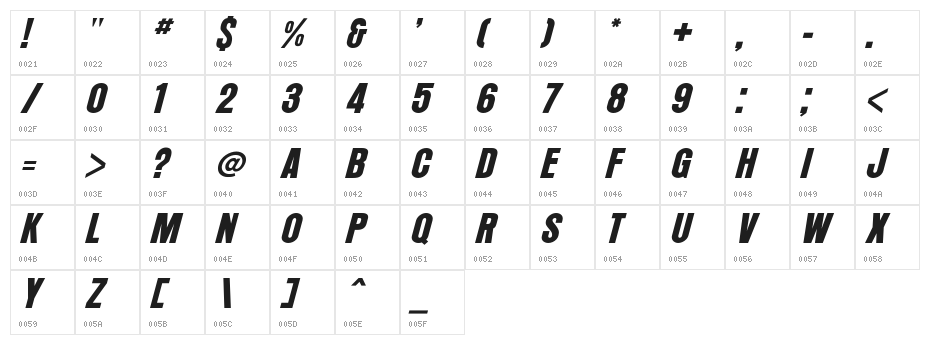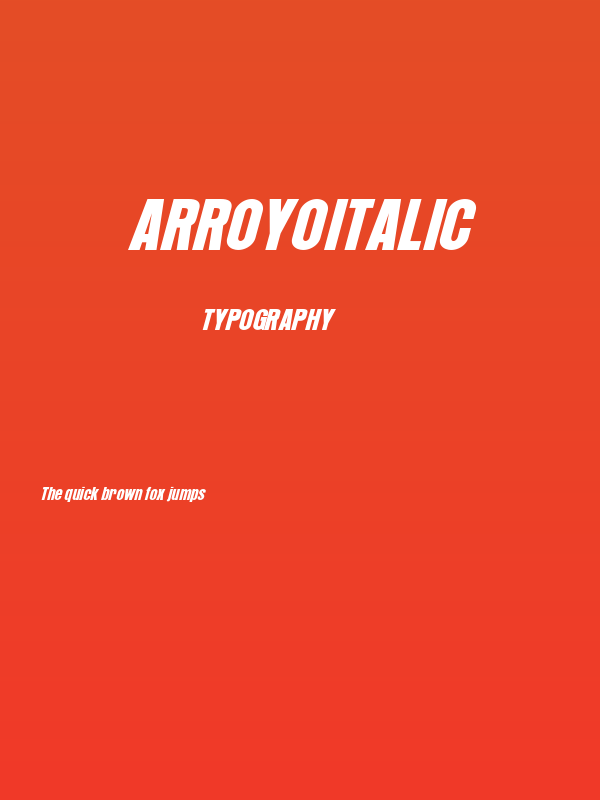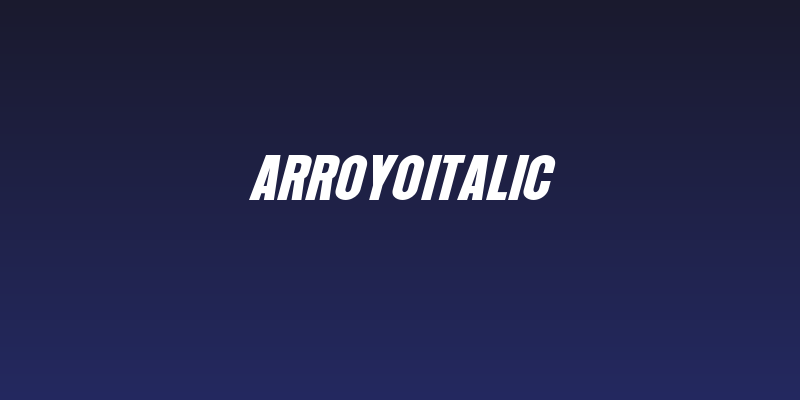
Arroyo Italic Font
Arroyo Italic Description
This font features a bold and italicized style, characterized by its strong and dynamic presence. The letters are slanted, adding a sense of movement and urgency. The strokes are thick and consistent, providing a robust and impactful appearance. The uppercase and lowercase letters maintain a uniform width, contributing to a cohesive look. Numbers and special characters are equally bold, ensuring they stand out prominently. This font's design is modern and assertive, making it suitable for attention-grabbing headlines and impactful statements.